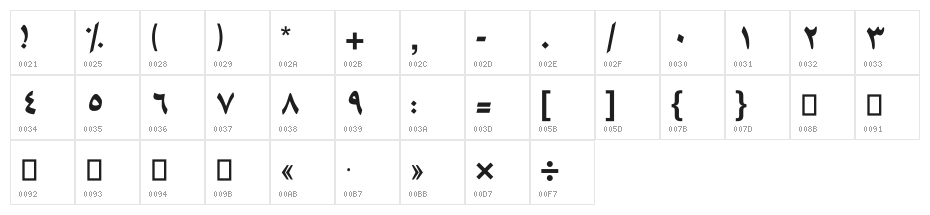
Hamaasah I Font
Hamaasah I Description
This font features a distinctive and artistic style, characterized by fluid and dynamic strokes that evoke a sense of movement and elegance. The numerals are particularly unique, with each digit displaying a playful yet sophisticated flair. The special characters maintain this artistic theme, adding a touch of creativity to punctuation marks. Overall, the font exudes a sense of modernity while retaining a hint of traditional calligraphic influences, making it versatile for various design applications.
Use CaseLogos, Artistic publications, Invitations
Proposed ProjectsIdeal for creative projects such as branding, invitations, posters, and artistic publications.